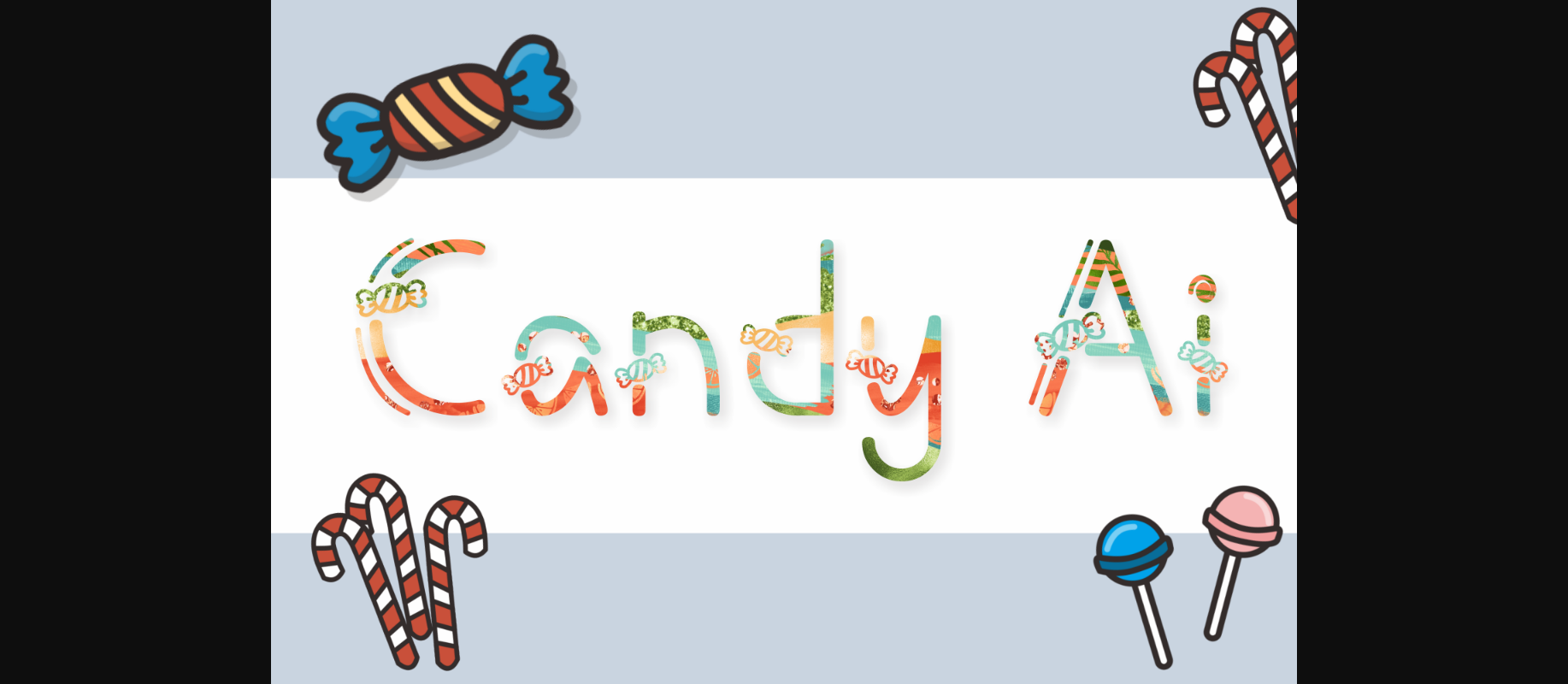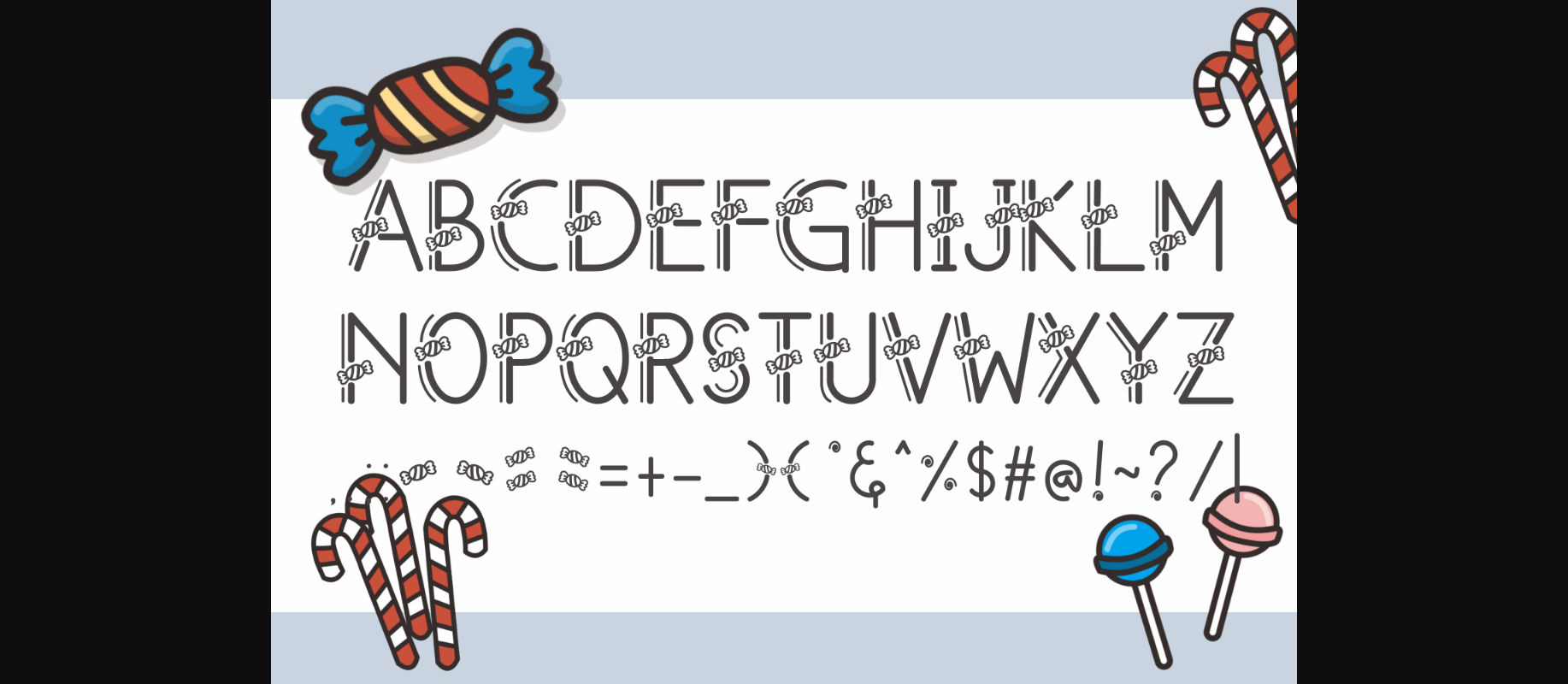
Candy Ai Font
About Candy Ai Font
Candy Ai is a sweet decorative font, featuring lovely candy ornaments. Fall in love with its authentic feel and use it to create gorgeous birthday invitations, beautiful stationary art, eye-catching social media posts, and cute greeting cards.